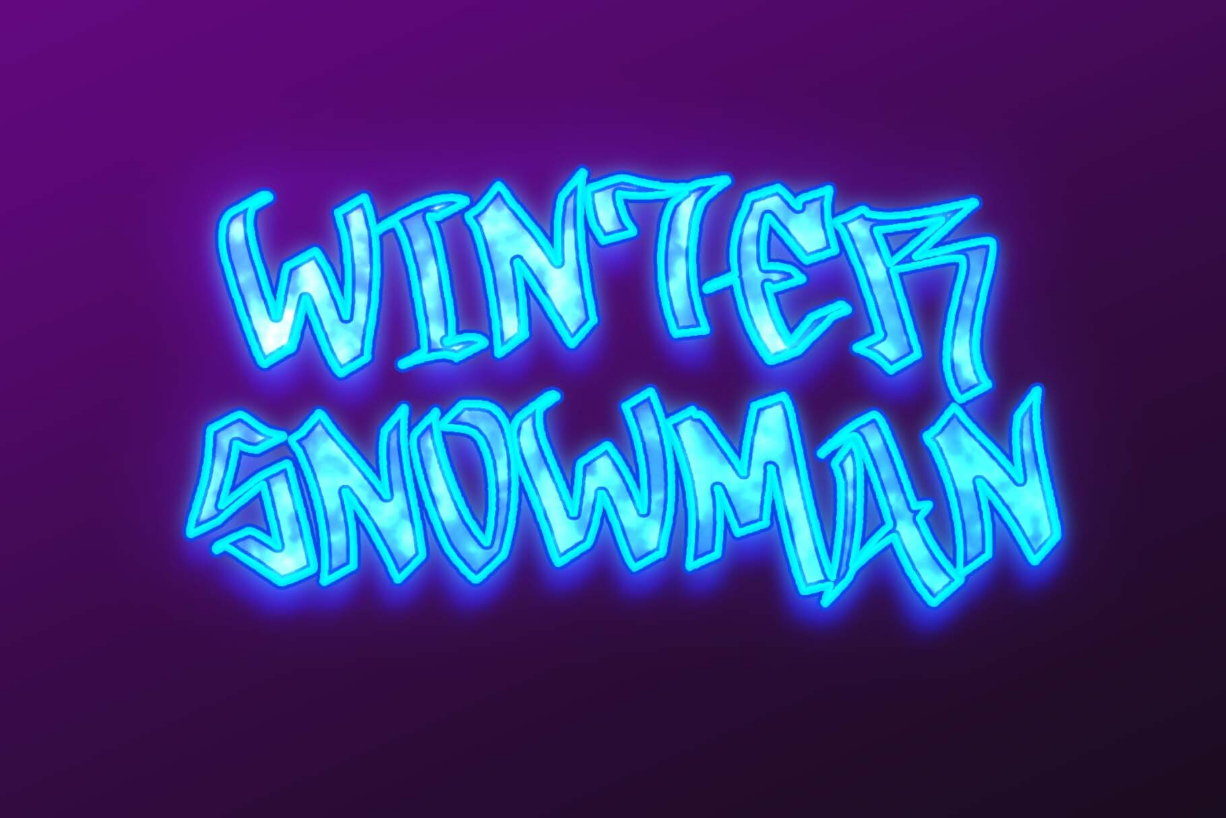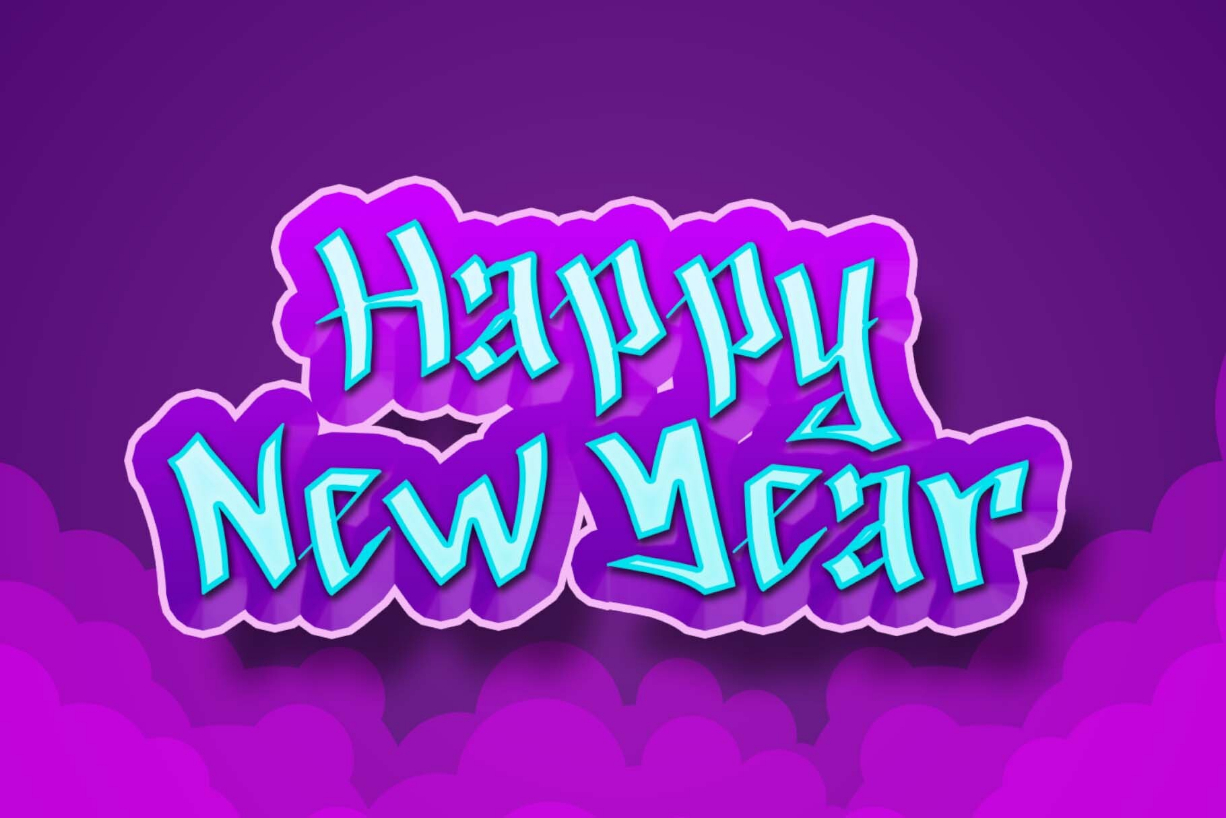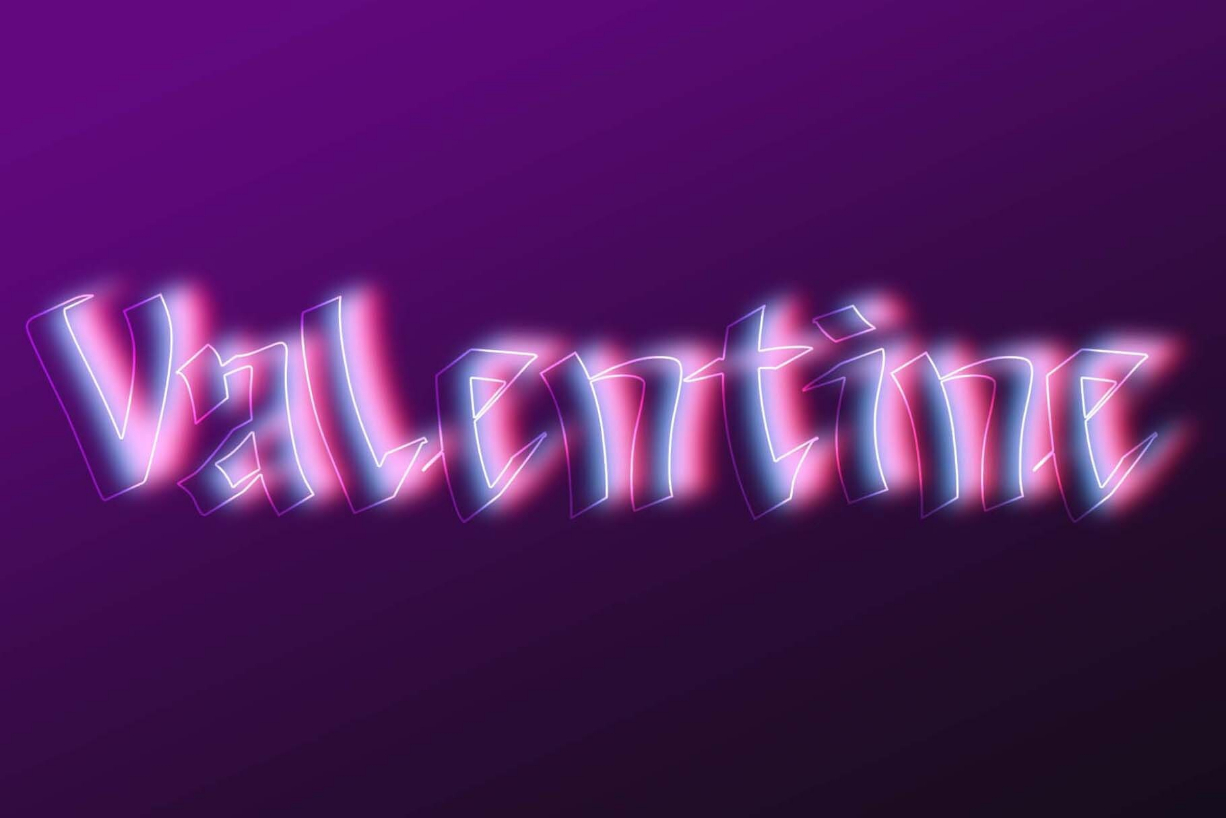
Lambardo Graffiti Font
About Lambardo Graffiti Font
“Lambardo Graffiti” is a unique and elegant graffiti font. This font is equipped with uppercase, lowercase, numerals, punctuation, and multilingual support. Very suitable for logos, banners, posters, branding, stickers, invitations, rock music concerts, city street fonts, city walls, murals, and others.